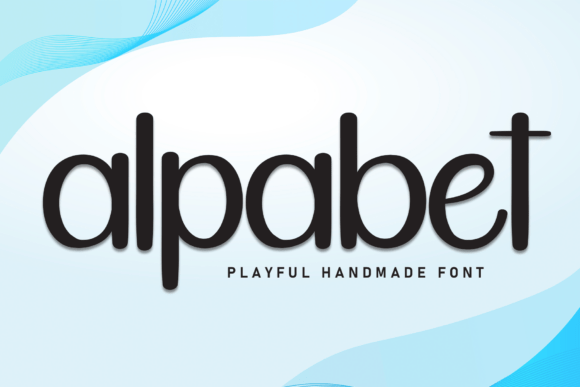
Discover the Joy of Alpabet Font
Remember that moment when you stumbled upon the perfect font for your project? The one that made everything fall into place, and your design sparkled with new life? That’s exactly what the Alpabet Font aims to deliver – a delightful, handwritten display font that infuses your creative journey with a dash of whimsy and charm.
As a designer, you understand the importance of finding the right font to elevate your work. The Alpabet Font is designed to bring a sense of playfulness and elegance to your designs, making it perfect for wedding invitations, cards, and any project that requires a touch of warmth and personality. With its perfect balance of simplicity and liveliness, this font is sure to become your new go-to companion in the world of design.
Key Features of Alphabet Font
- Unique Character Set: The Alphabet Font features a unique set of characters, including uppercase and lowercase letters, numbers, and special symbols, making it ideal for use in educational and children’s materials.
- Legibility and Readability: The font is designed for optimal legibility and readability, with clear and distinct letterforms that make it easy to read and understand, even for young children.
- Font Style: The Alphabet Font is a sans-serif font, which makes it clean and modern, and easy to read in digital and print formats.
Alpabet Font Review
When I first laid eyes on the Alpabet Font, I was immediately struck by its playful and quirky vibe ✨. The font’s unique letterforms and bold lines give it a fun, energetic feel that’s perfect for creative projects and branding.
The Alpabet Font’s versatility is another major plus ✨. It works well in a variety of contexts, from headings and titles to body text and even digital signage. The font’s bold weights and italic styles make it easy to create visually appealing contrasts and add emphasis where needed.
While the Alpabet Font is a solid choice for many projects, there are a few limitations to be aware of ⚠️:
- Legibility at small sizes can be a bit of a challenge ⚠️. The font’s unique letterforms can become difficult to read when reduced to very small sizes.
- The font’s bold weights can feel a bit heavy-handed in certain contexts ⚠️. This can make it difficult to create a balanced and harmonious visual hierarchy.
Overall, the Alpabet Font is a fun and versatile choice for creative projects. While it may have some limitations, its unique personality and range of styles make it a great option for designers looking to add some personality to their work.
Tips for Getting the Most Out of Alphabet Font
Use Alphabet Font to add a playful touch to your designs. It’s particularly effective for titles, headings, and children’s content. Experiment with different font sizes and colors to create visual interest.
Alphabet Font is commonly used for:
- Children’s books and educational materials.
- Party invitations and decorations.
- Typography-based art and designs.